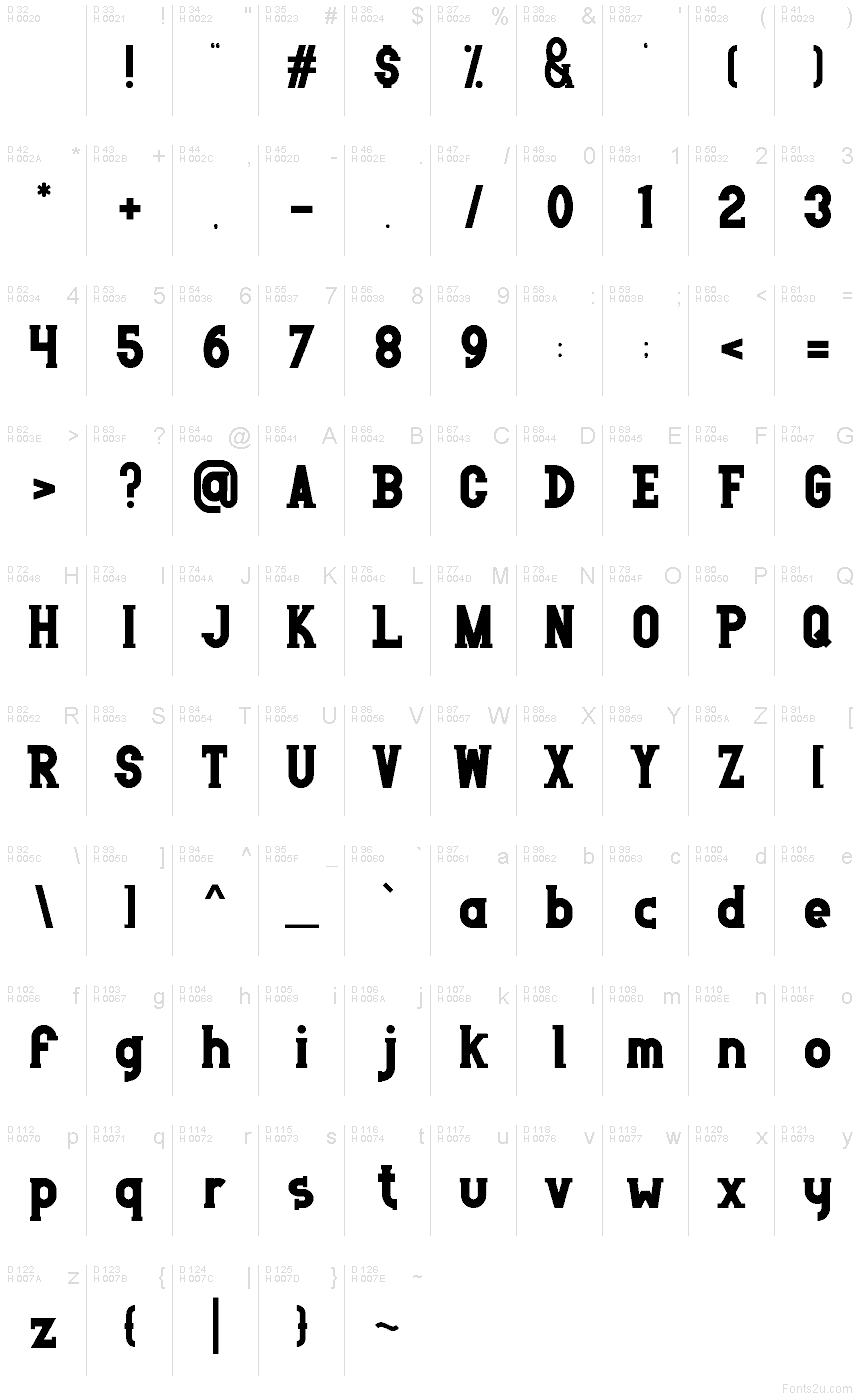
BigFlorida
Big Florida font by Muhammad Yafinuha is a serif font inspired by geometric influences. It conveys a clean and bold appearance that balances uniform consistency with vintage elements. A fascinating mix of modern and retro ideals, its letters are designed for a strong presence in every placement and size they are being used in.